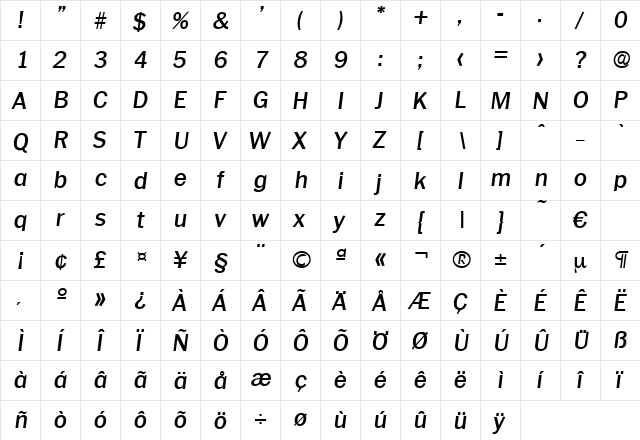
Plymouth-MediumIta Regular
Design Context for Plymouth-MediumIta Typeface
Plymouth-MediumIta offers clean, dependable letterforms without strong stylistic allegiance, making it a practical choice for designers who need flexibility.